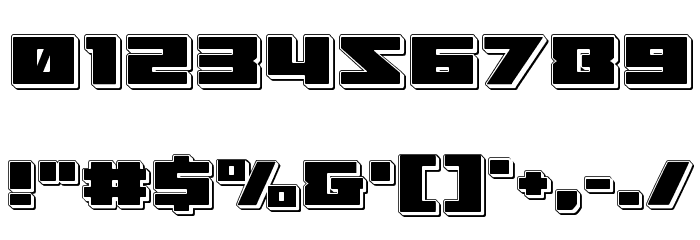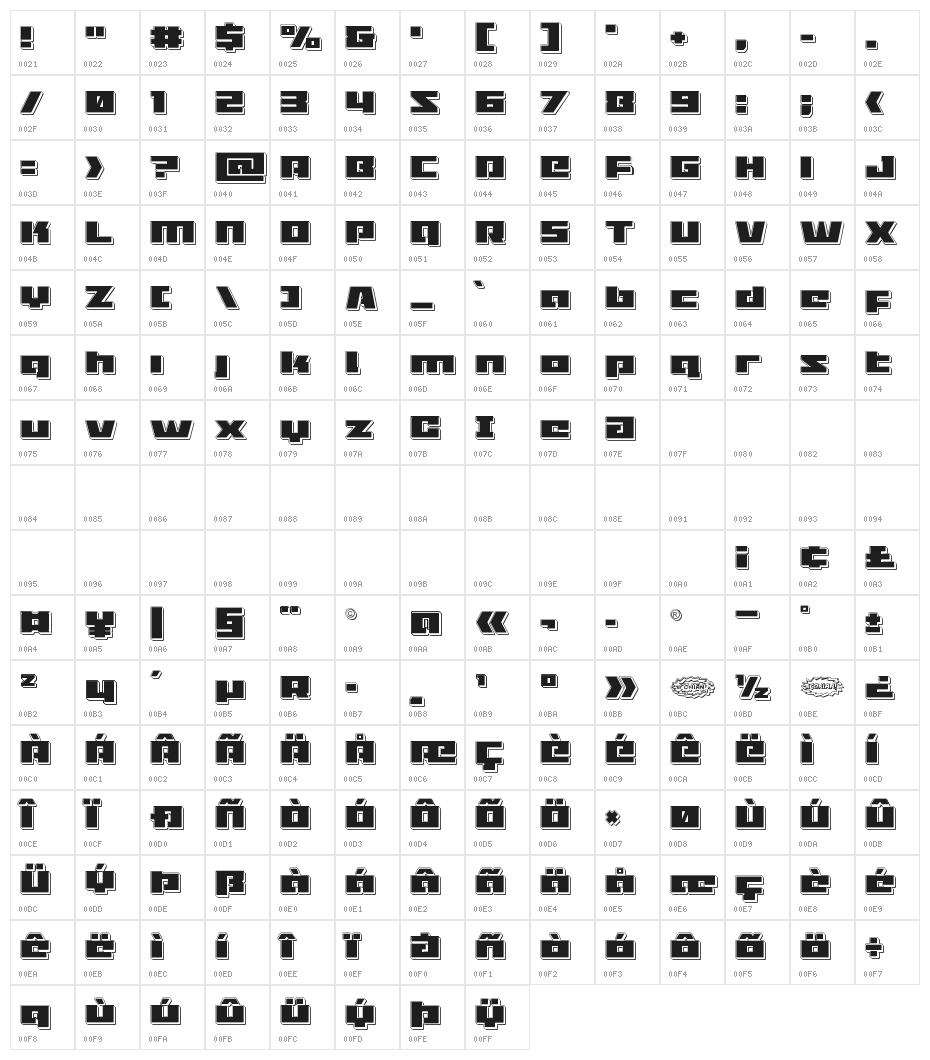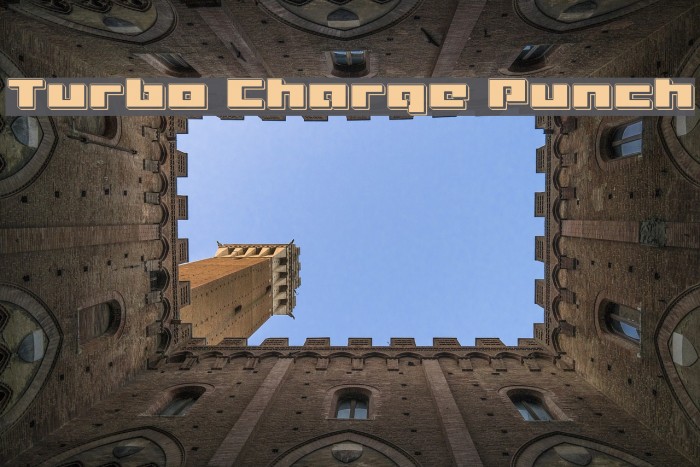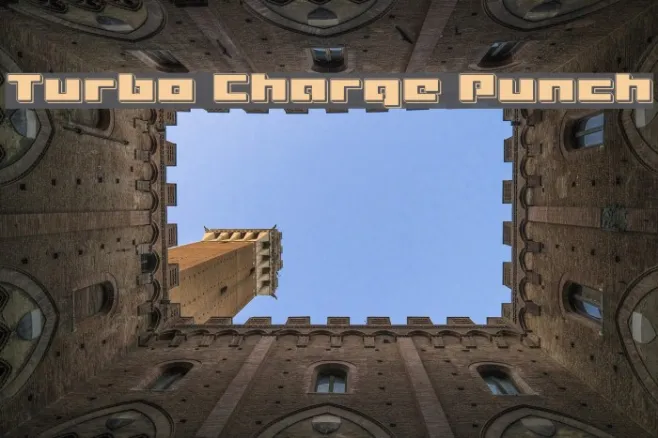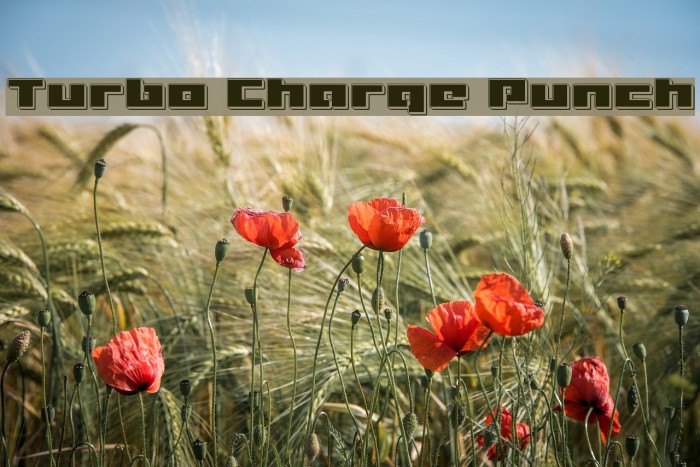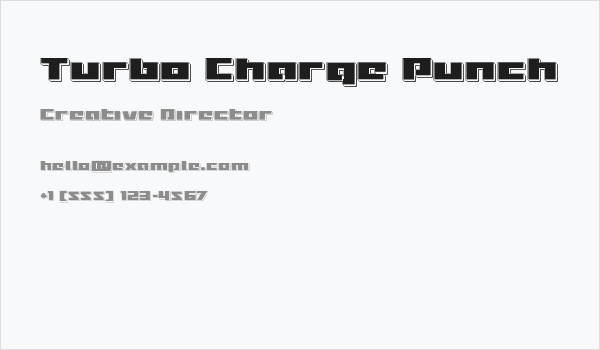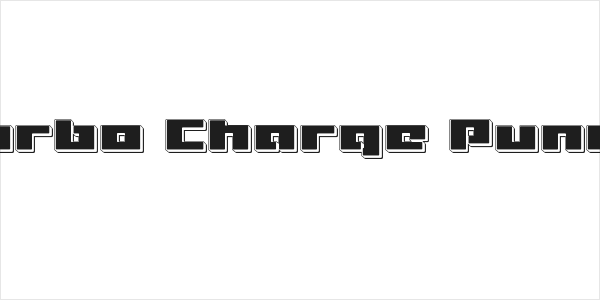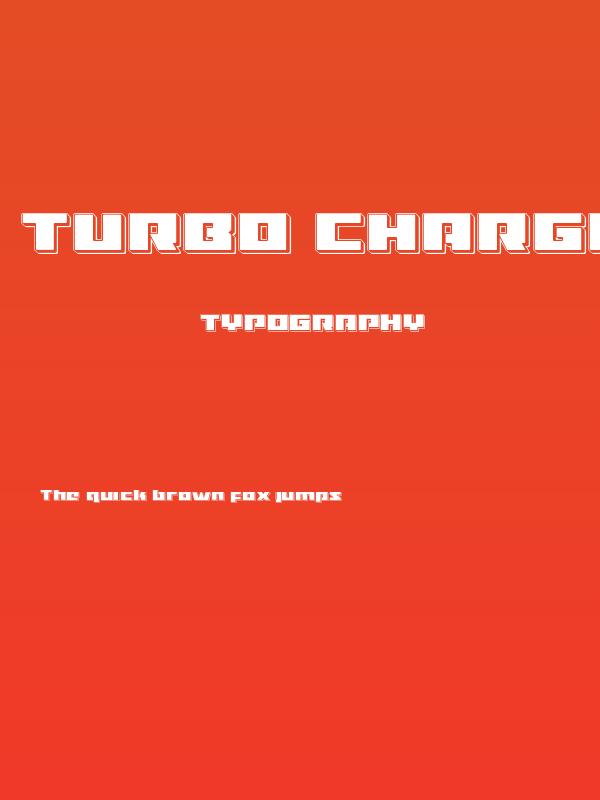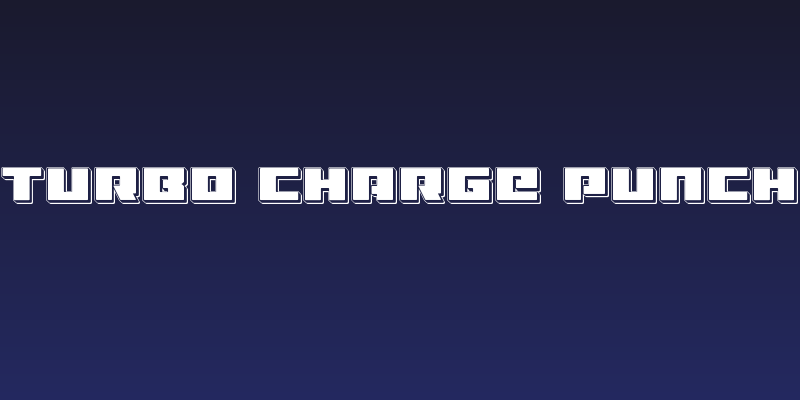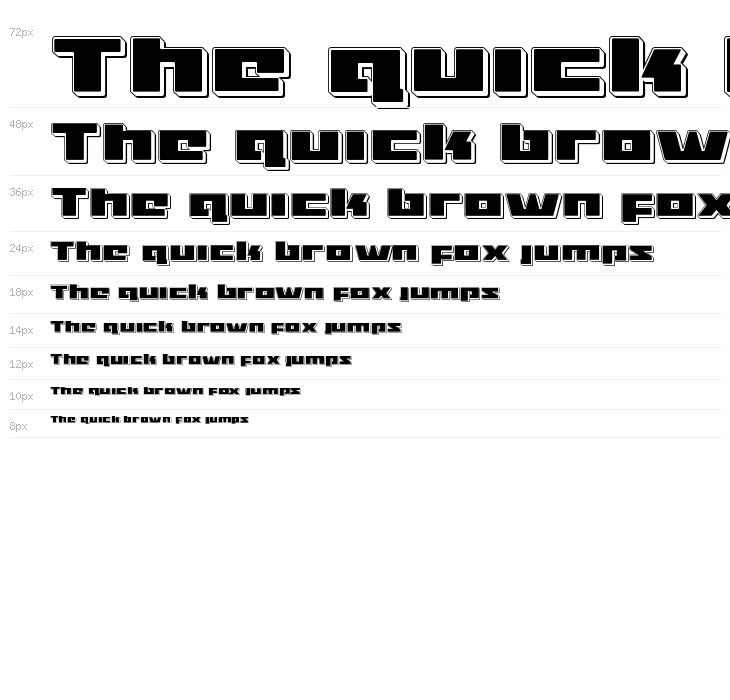
Turbo Charge Punch Font
Turbo Charge Punch Description
This font features a bold, geometric design with a strong, impactful presence. The characters are constructed with thick, block-like shapes, giving them a robust and industrial feel. Each letter is outlined, adding depth and a three-dimensional effect. The style is consistent across uppercase, lowercase, numbers, and special characters, maintaining a cohesive look. The font's design is reminiscent of retro-futuristic aesthetics, making it suitable for projects that require a bold and modern touch. Its unique style ensures that it stands out, making it ideal for attention-grabbing headlines or logos.
| Overall Style | Modern, Retro-Futuristic |
| Proposed Projects | Ideal for branding, logos, video game titles, posters, and any project needing a strong, modern aesthetic. |